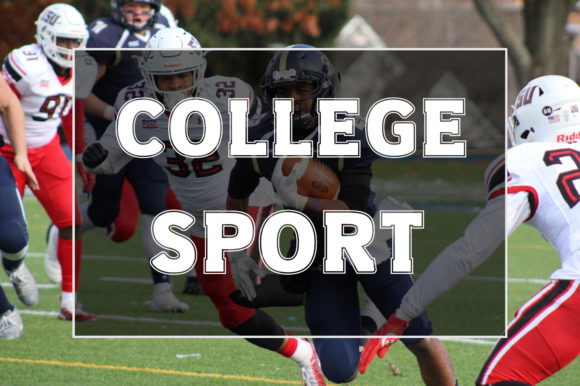
Fasten your belts and get ready for a touchdown with College Sport Font, the ultimate typography champion that will elevate your designs to the top of the scoreboard! This bold and chunky slab serif font is a game-changer, designed to make your sporting events, posters, and headlines stand out like a star player.
With College Sport Font, you'll have the winning strategy to capture attention and leave a lasting impression. Its robust and confident strokes exude strength and determination, perfectly embodying the spirit of competition and athleticism. Whether you're creating posters for the big game, designing team uniforms, or crafting eye-catching social media graphics, this font will help you score a victory every time.
Step onto the field of creativity and let College Sport Font lead your designs to greatness. Its powerful presence will command attention and inspire awe, making your message impossible to ignore. Unleash your inner athlete and embrace the thrill of victory with this font that's as dynamic as a last-minute touchdown.